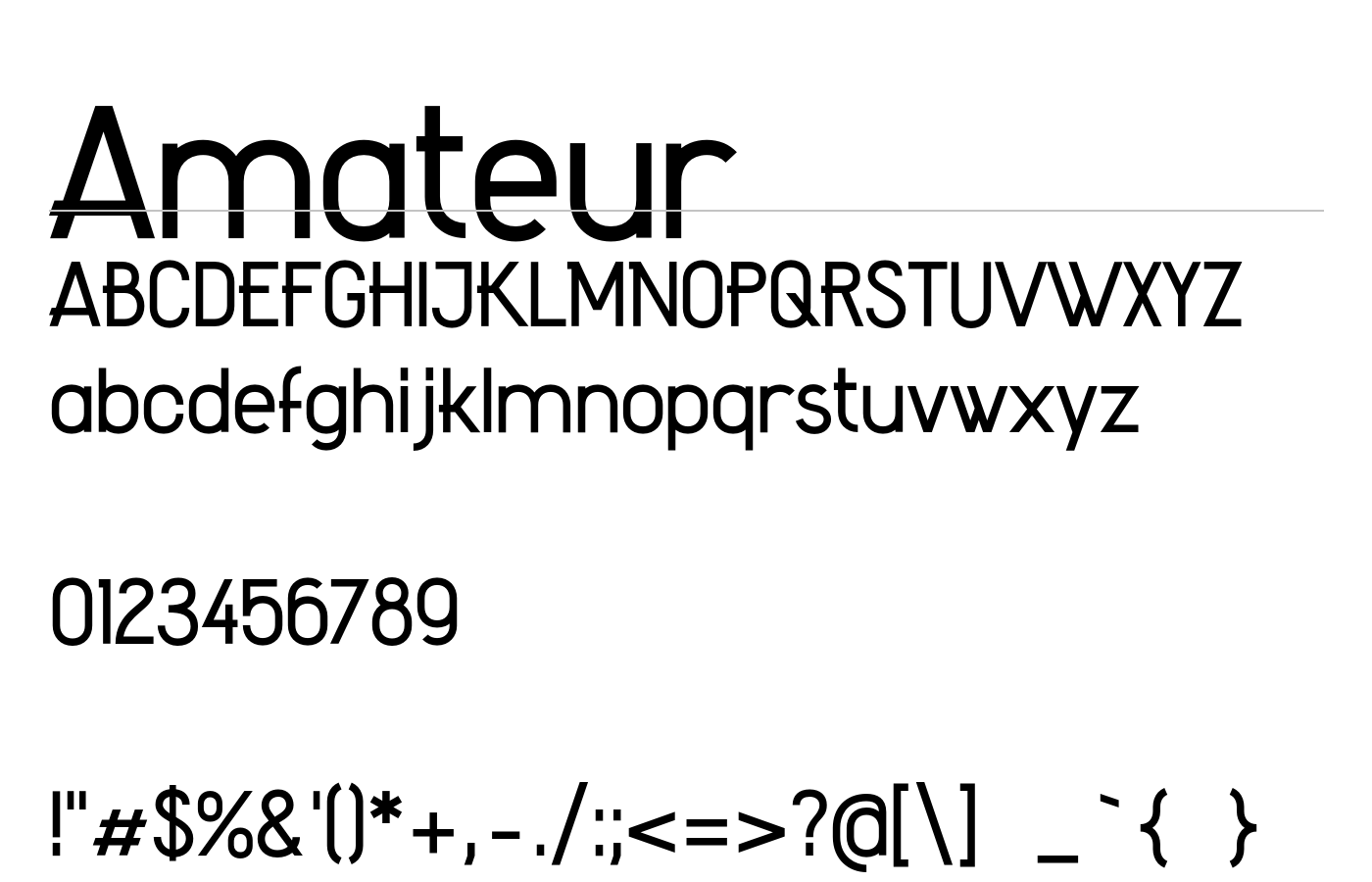
Amateur is a modern, narrow sans serif font with a clean and minimal design, featuring tall, condensed letterforms and low contrast strokes. Its precise geometric shapes and single-story letters give it a technical, contemporary feel, making it ideal for sleek editorial layouts, tech branding, and digital interfaces where clarity and a modern aesthetic are key.
Amateur Font
About Amateur Font